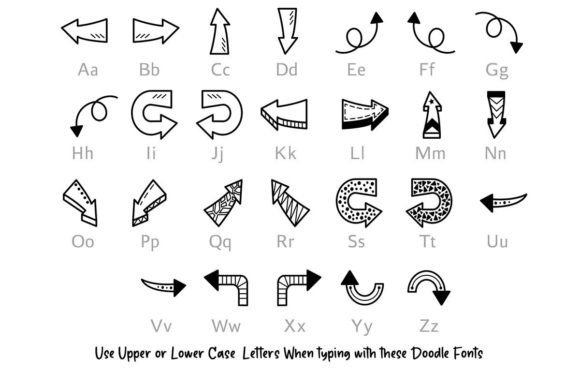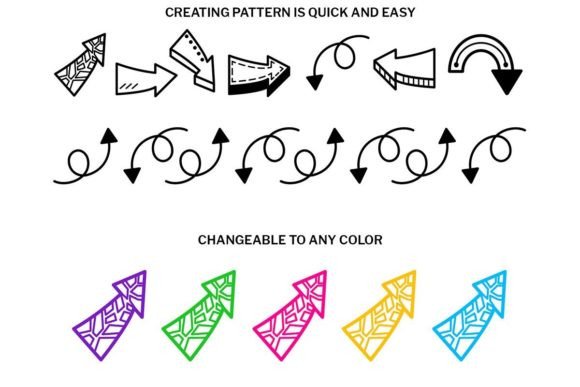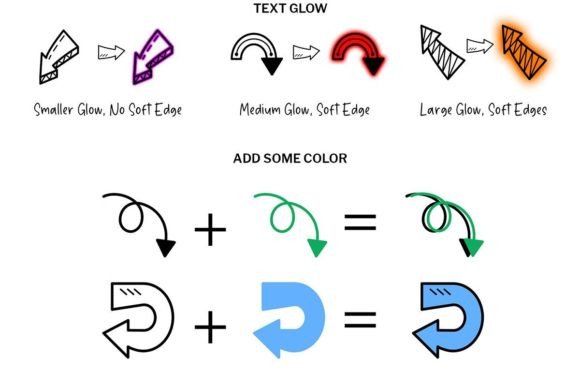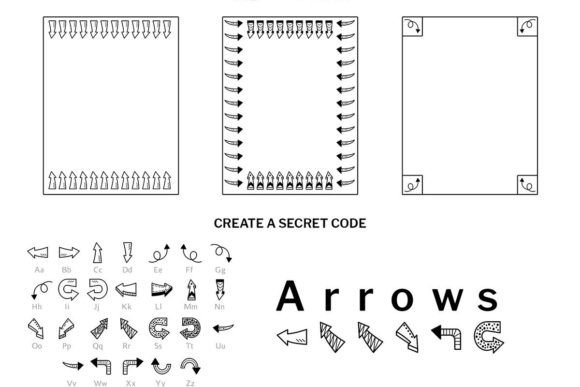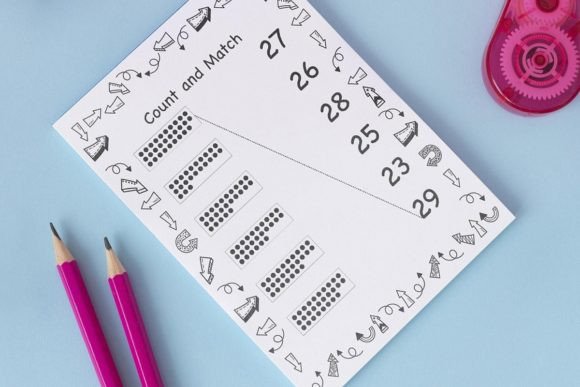
Doodle Arrows Font: Unleash Your Creativity with this Fun and Versatile Dingbat Font
Are you a designer, crafter, or planner enthusiast looking for a unique and versatile font to add a personal touch to your projects? Look no further than Doodle Arrows Font! This fun and useful dingbat font is perfect for a wide range of creative endeavors, from craft projects and designs to planners, diaries, activity books, and more.
What is Doodle Arrows Font?
Doodle Arrows Font is a dingbat font that features a collection of hand-drawn arrows, lines, and shapes that can be used to add a playful and creative touch to your designs. The font is made up of a wide range of arrow styles, from simple and minimalist to more complex and decorative. Whether you’re looking to add a subtle accent to your design or create a bold statement, Doodle Arrows Font has got you covered.
The Versatility of Doodle Arrows Font
One of the best things about Doodle Arrows Font is its versatility. The font can be used in a wide range of projects, including:
- Craft projects: Use Doodle Arrows Font to add a personal touch to your craft projects, such as scrapbooking, card making, and journaling.
- Designs: Add a creative and playful touch to your designs, whether you’re working on a logo, brochure, or website.
- Planners and diaries: Use Doodle Arrows Font to create custom headers, footers, and dividers for your planners and diaries.
- Activity books: Add a fun and interactive element to your activity books, such as coloring books, mazes, and word searches.
Why Use Doodle Arrows Font?
So why should you use Doodle Arrows Font in your projects? Here are just a few reasons:
- Unique and creative: Doodle Arrows Font offers a unique and creative way to add visual interest to your designs.
- Versatile: As mentioned earlier, Doodle Arrows Font can be used in a wide range of projects, making it a great addition to your font library.
- Fun: Let’s not forget the most important reason – Doodle Arrows Font is just plain fun! It adds a playful touch to your designs and can help to convey your personality and style.
Tips for Using Doodle Arrows Font
Here are a few tips for getting the most out of Doodle Arrows Font:
- Experiment with different sizes and colors: Don’t be afraid to experiment with different sizes and colors to find the perfect combination for your design.
- Mix and match: Try mixing and matching different arrow styles to create a unique and interesting design.
- Use as a background element: Use Doodle Arrows Font as a background element to add texture and interest to your design.
- Combine with other fonts: Try combining Doodle Arrows Font with other fonts to create a unique and visually appealing design.
In conclusion, Doodle Arrows Font is a fun and versatile dingbat font that is perfect for designers, crafters, and planners enthusiasts. Its unique and creative designs make it a great addition to any project, and its ease of use makes it accessible to creators of all skill levels. Whether you’re looking to add a personal touch to your craft projects or create a bold statement with your designs, Doodle Arrows Font is sure to inspire your creativity.